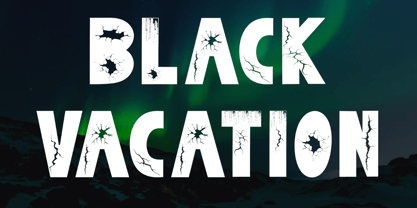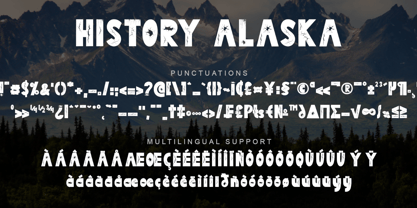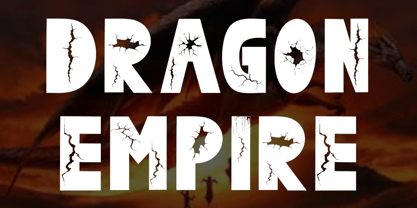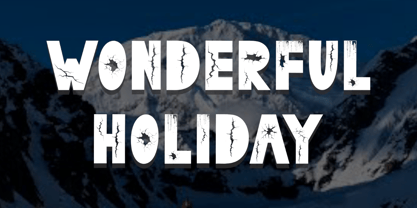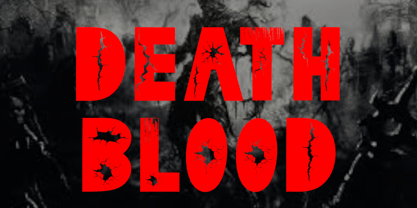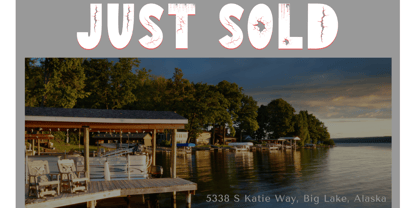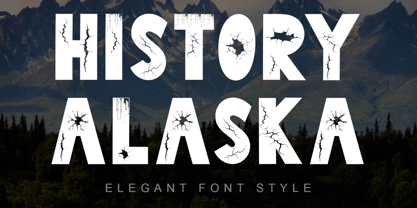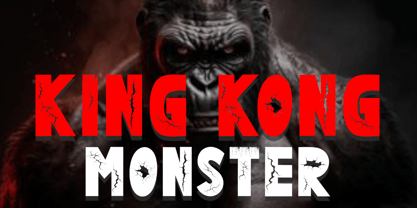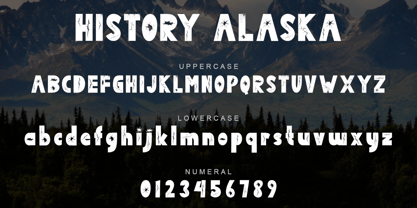
History Alaska
by Yoga Letter
"History Alaska" is an elegant and unique display font. This font is equipped with uppercase, lowercase, numerals, punctuations and multilingual support. It is very suitable for use for movie titles, action movies, magazine titles, book titles, logos, banners, posters, prints, business branding, stickers, spring, summer, holiday, vacation, social media and others.
History Alaska